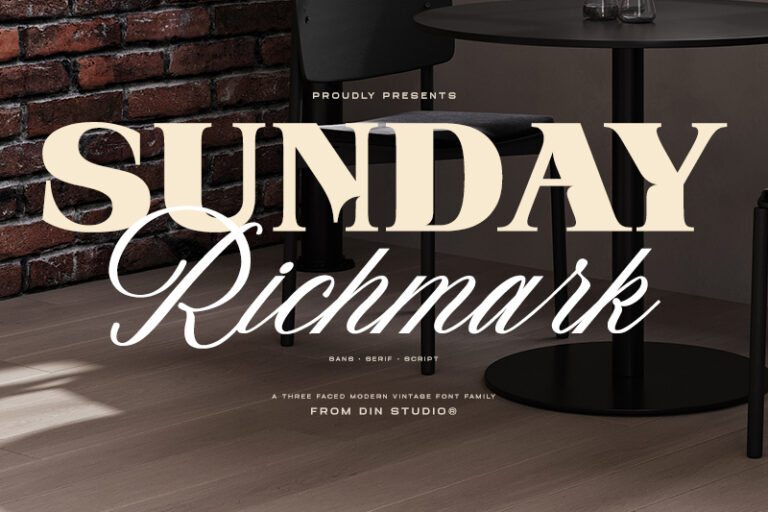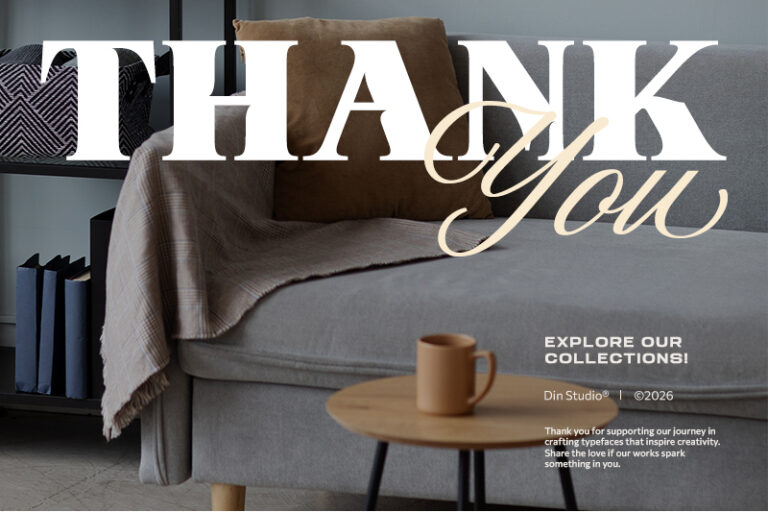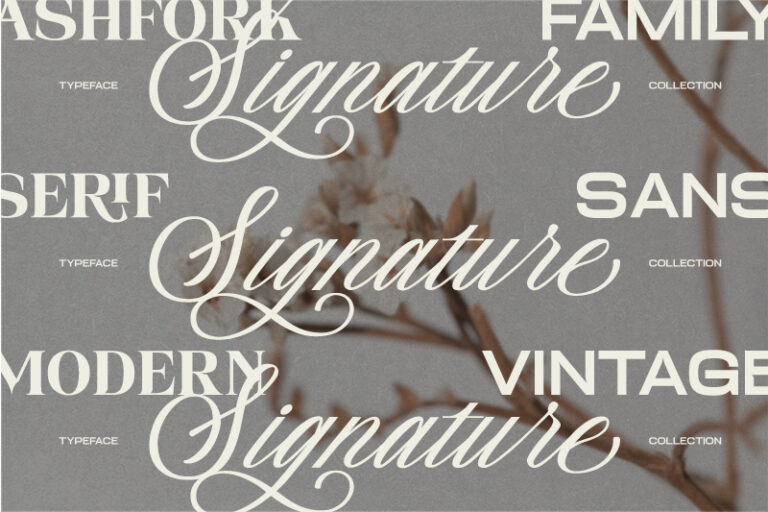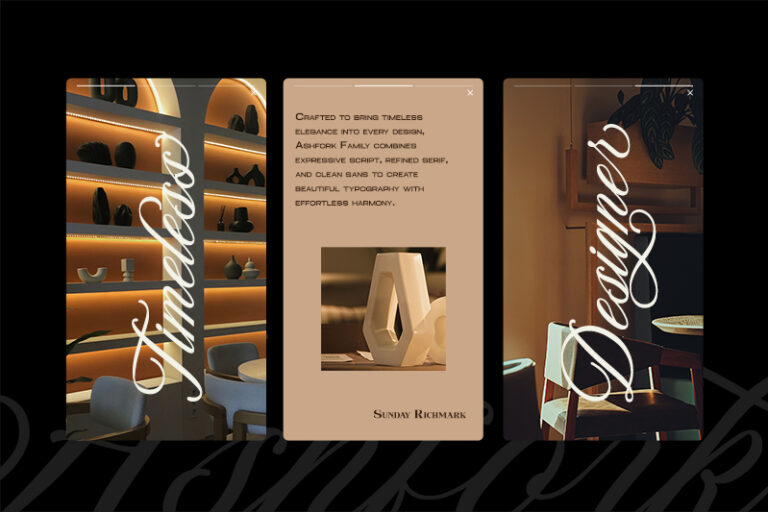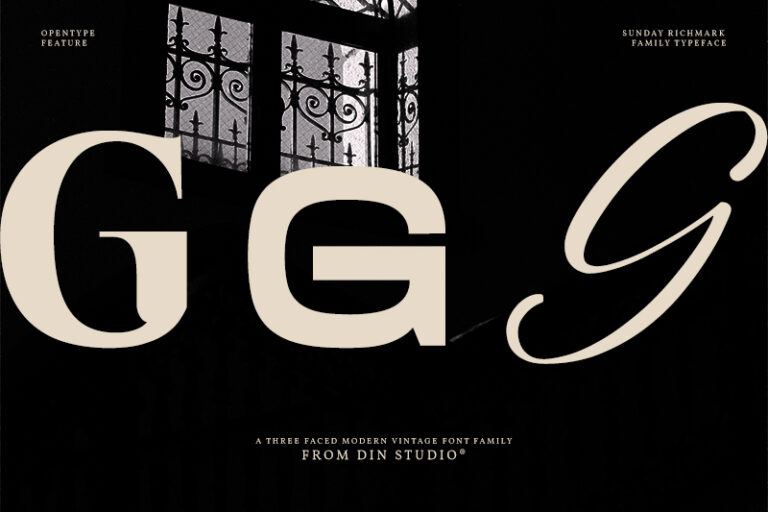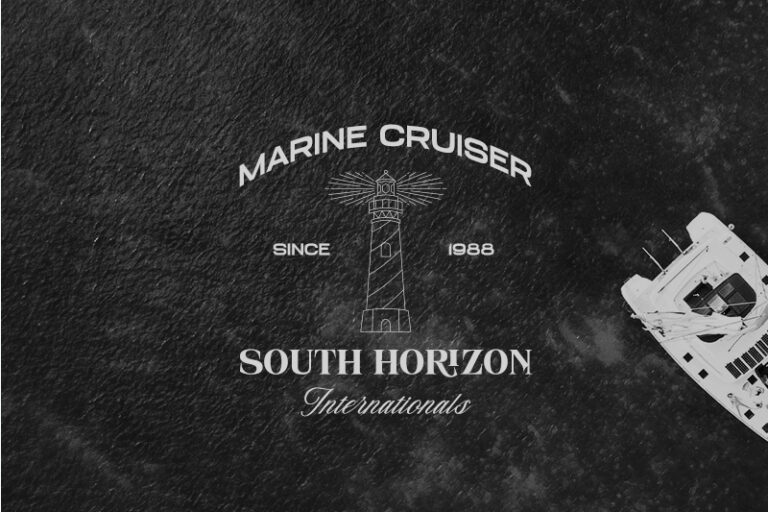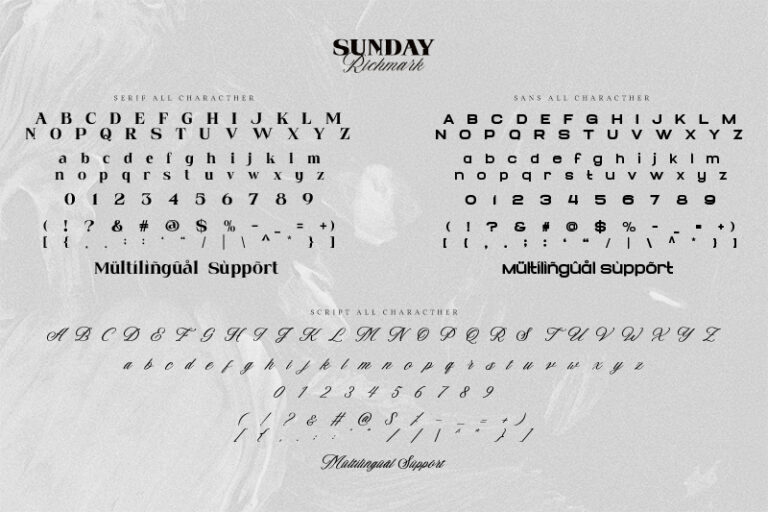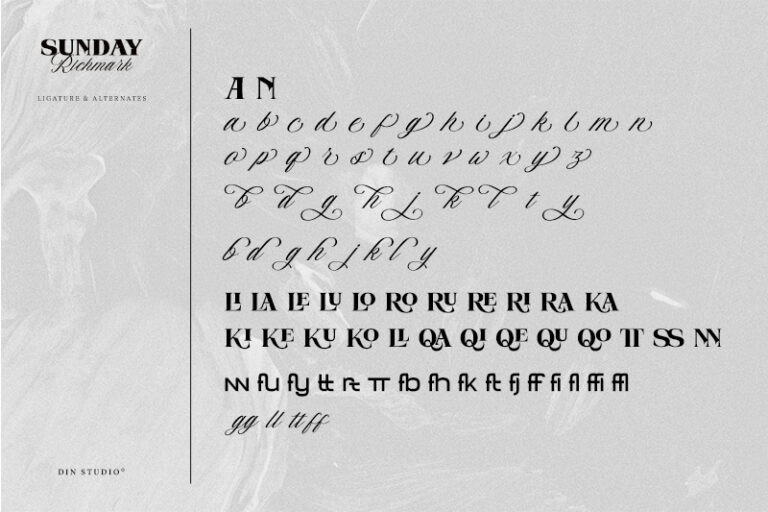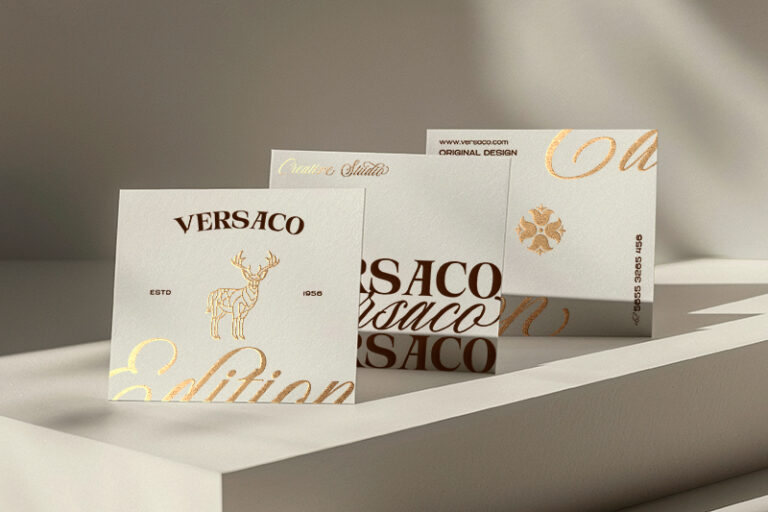
Sunday Richmark – Sans Serif Script Font Family
Sunday Richmark is a versatile modern vintage trio font family. The combination of sans serif, serif, and script fonts makes Sunday Richmark especially flexible. Each style can work beautifully on its own, but when used together, they create an appealing typographic hierarchy with plenty of contrast and personality. The sans serif style provides a clean and modern foundation, the serif adds classic elegance and vintage character, while the script introduces a handcrafted and expressive touch. Together, these three styles create a balanced font trio that can transform ordinary layouts into memorable visual compositions.
- Alternates
- Ligatures
Sunday Richmark fits in logos, quotes, branding, posters, and many more designs. Find out more ways to use this font by taking a look at the font preview.